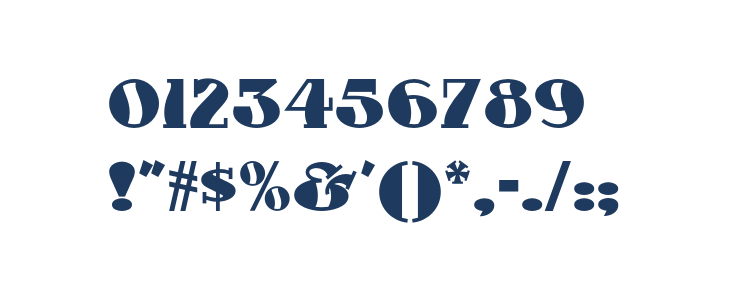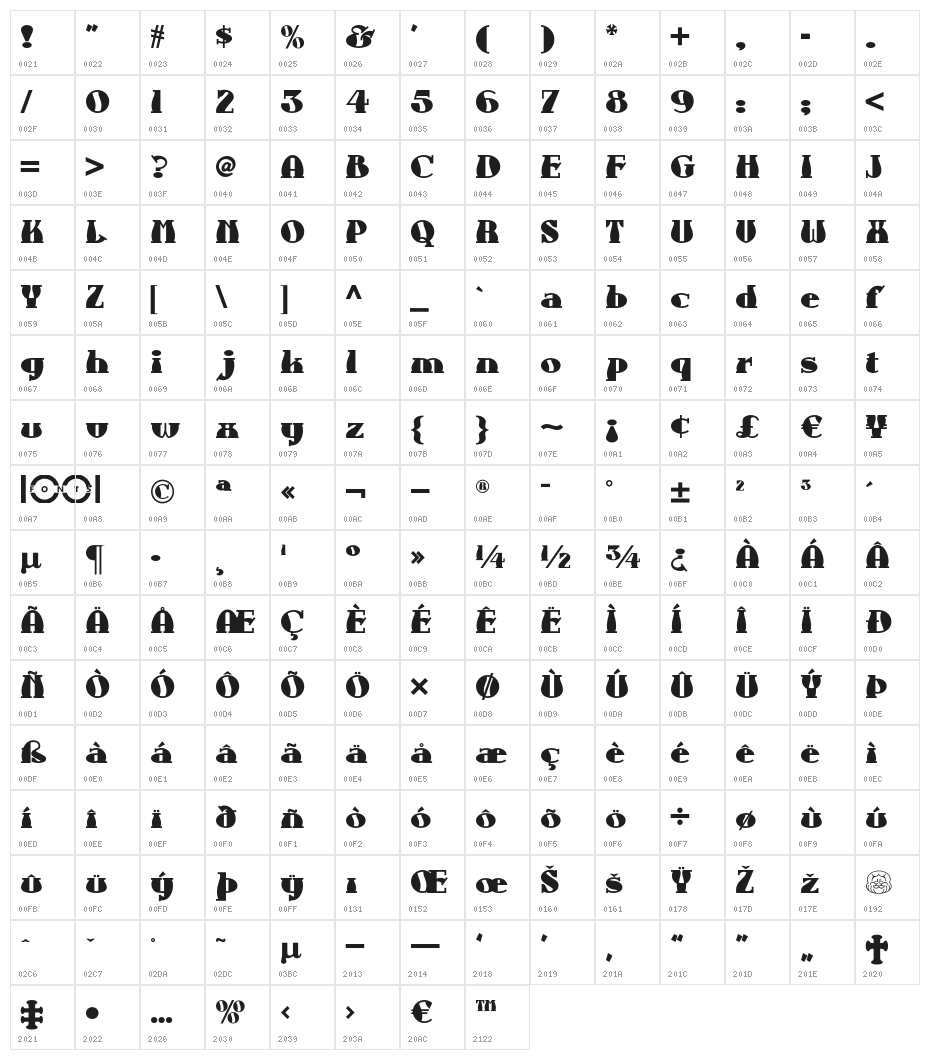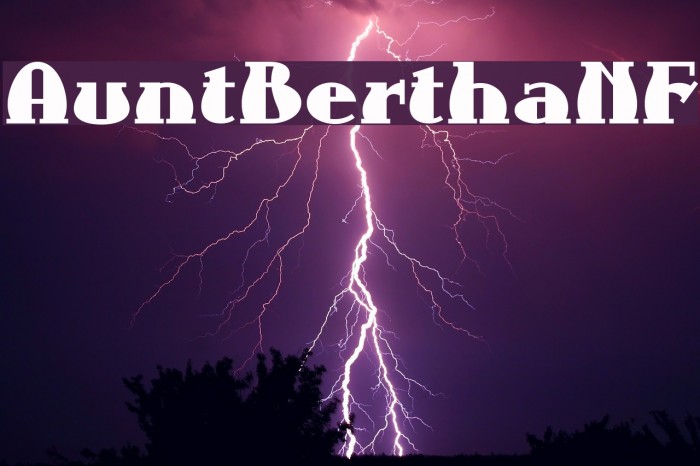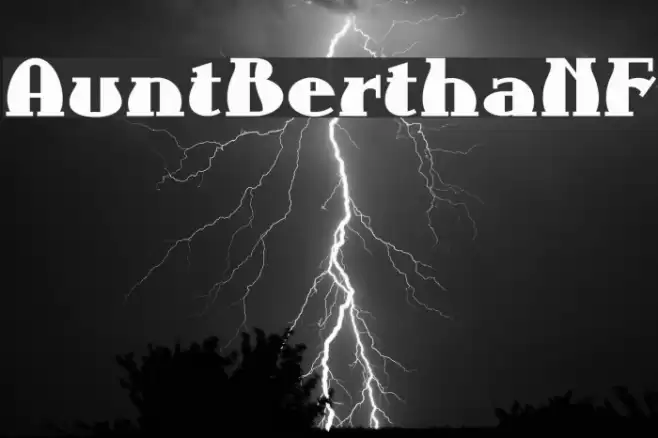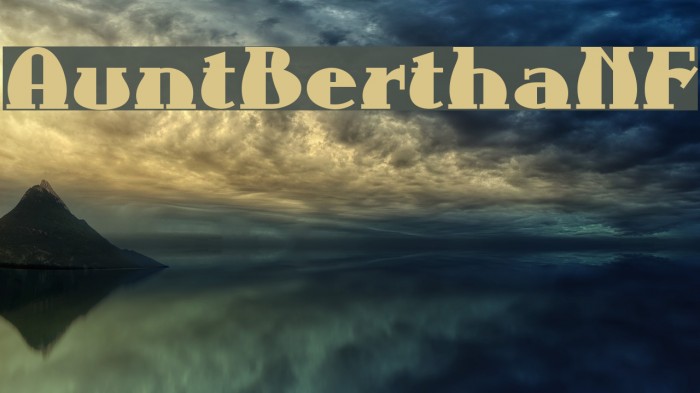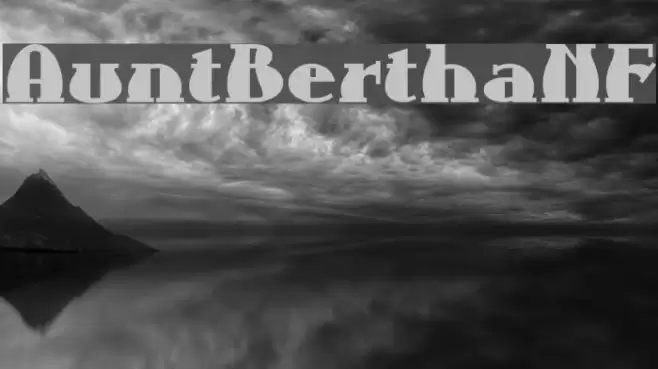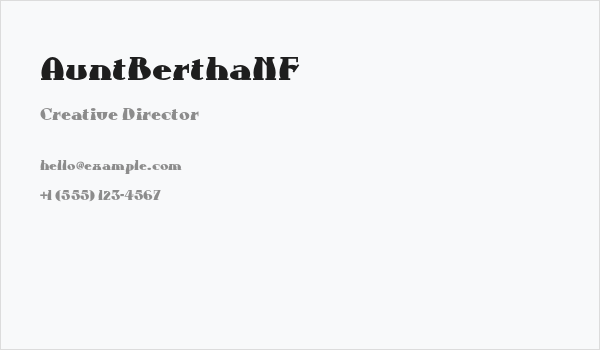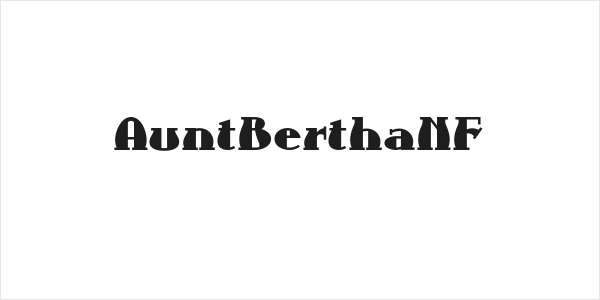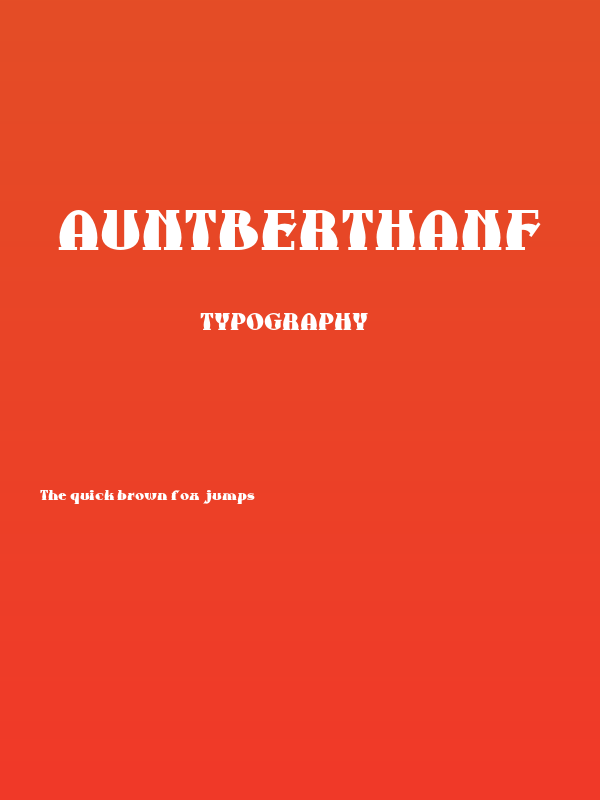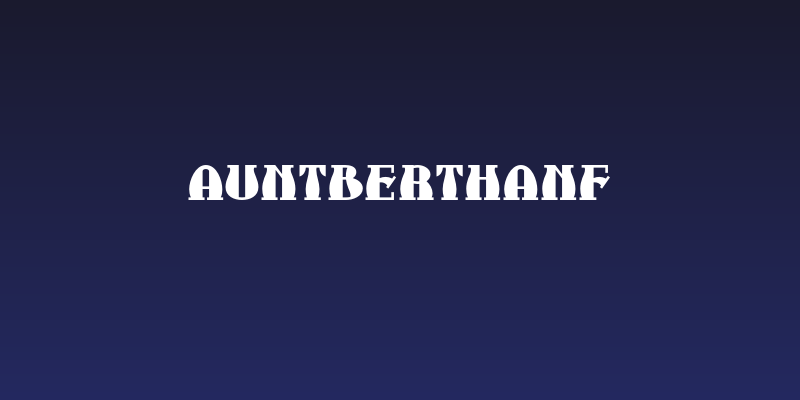
AuntBerthaNF Font
AuntBerthaNF Description
This font features a bold and dramatic style with high contrast between thick and thin strokes. The characters have a unique, almost theatrical appearance, with exaggerated serifs and a playful, decorative flair. The uppercase letters are particularly striking, with a strong presence that commands attention. The lowercase letters maintain the same boldness, ensuring consistency across text. Numbers and special characters are equally bold, making them stand out in any design. This font is perfect for creating eye-catching headlines or logos that require a touch of elegance and drama.